Font Typesetting Function 10: “Group of Fraction (afrc/frac)”
Two types of styles are prepared for the OpenType font fraction. One is “fraction (afrc) with the use of a horizontal line,” and the other is “fraction with the use of a slash (frac).”
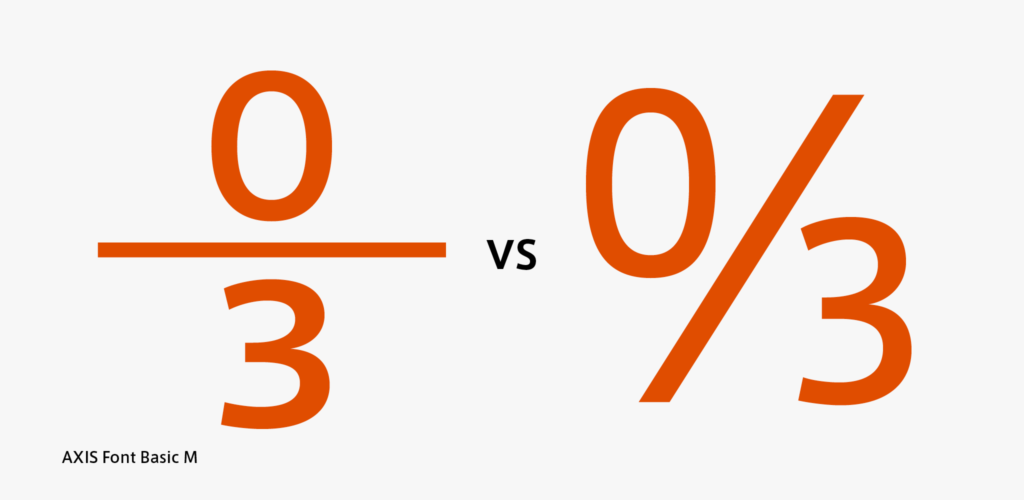
Proper fractions that cannot be reduced of which the denominator is from 2 to 12, “0/3,” and “1/100” are included in the ProN edition of AXIS Font. The reason that “0/3” is included in the numerator 0 is to express the innings pitched by a pitcher in baseball. It signifies an inning without getting even one out.